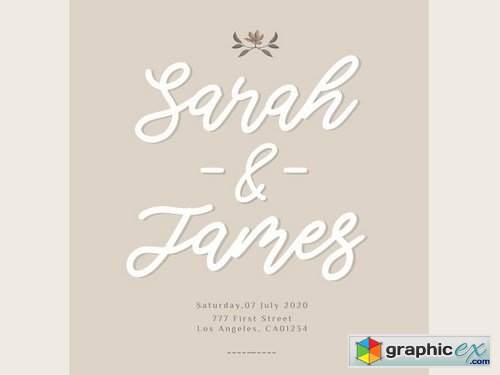
Amertano YH - Monoline Handwritten Font
Amertano is perfect for product packaging, branding project, megazine, social media, wedding, or just used to express words above the background.